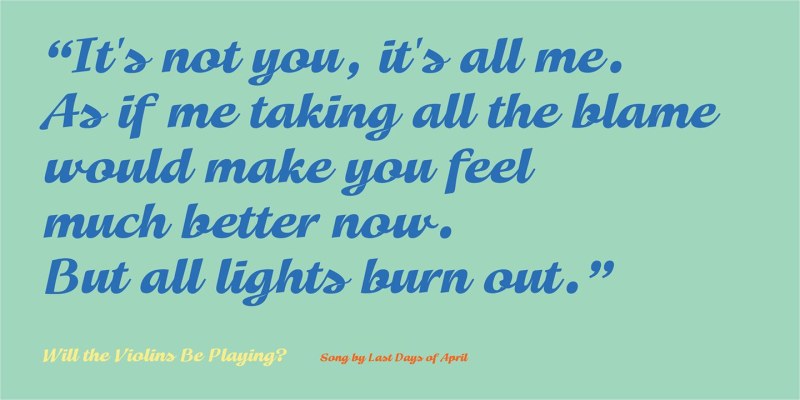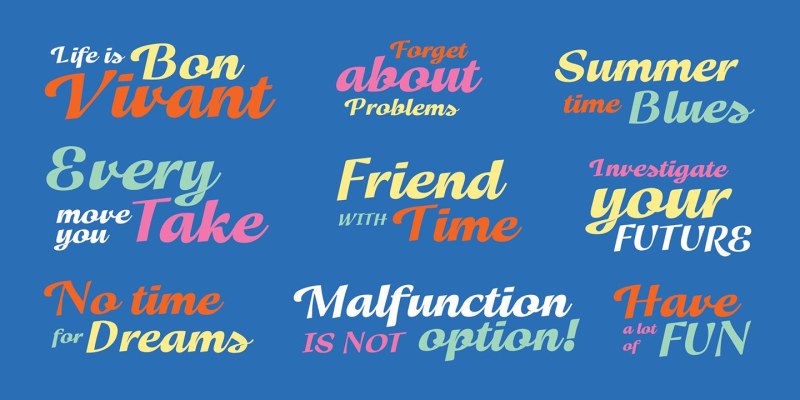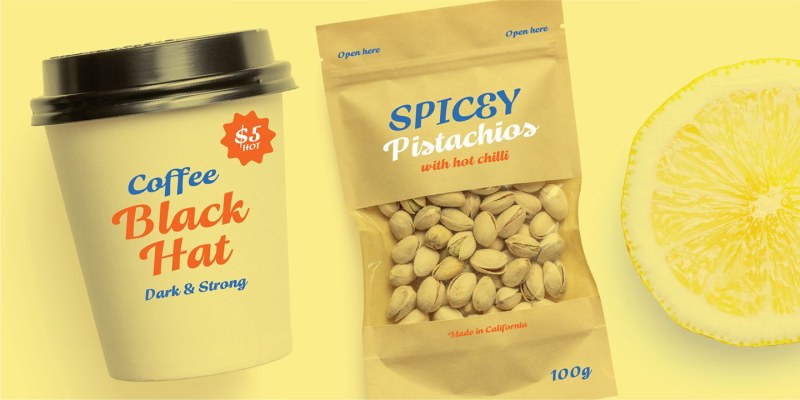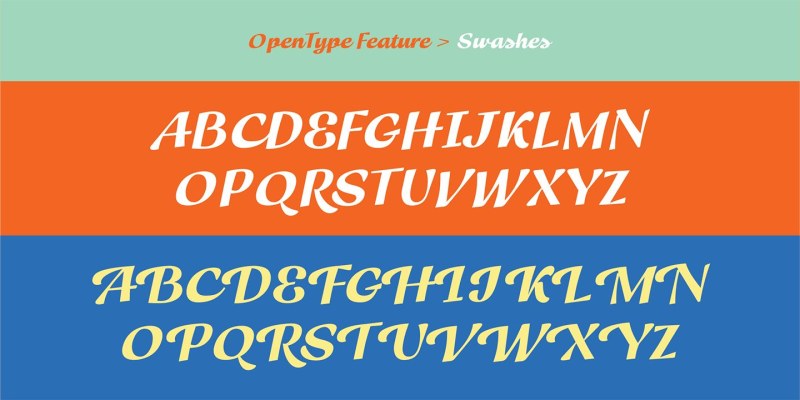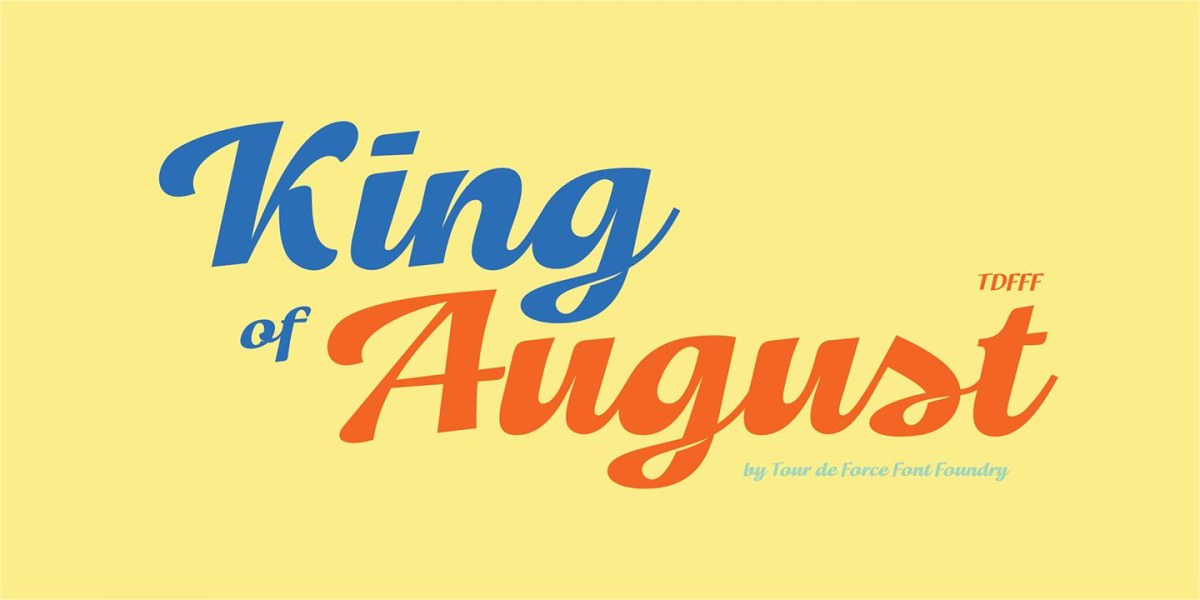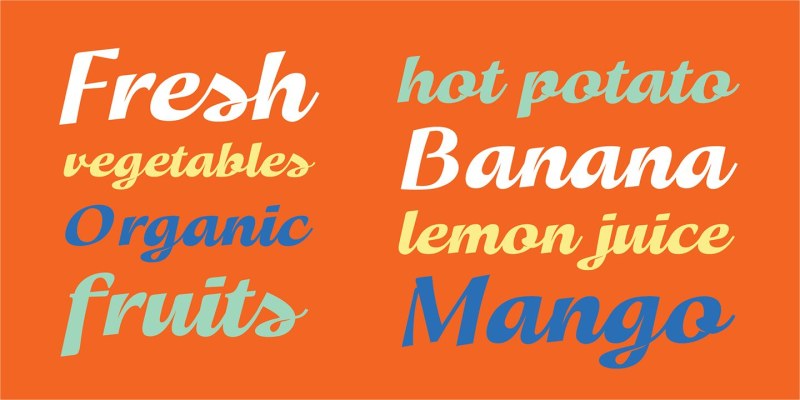
King of August Font
King of August is single weight script font. Simple, elegant, designed letters with power to fit and lead any project. It is ideal for product names, labels, packages, K…
King of August is single weight script font. Simple, elegant, designed letters with power to fit and lead any project. It is ideal for product names, labels, packages, King of August works well in titles and shorter paragraphs as well. Comes with Swashes as OpenType feature.
Where King of August Font works best
King of August Font brings a personal, handwritten warmth to invitations, menus and place cards.
Craft brands — coffee, cosmetics, bakery — use scripts like King of August Font for signature-style logos and labels.
Pair King of August Font with a plain sans for quotes, stories and Pinterest pins that feel handmade.
What is King of August Font good for?
King of August Font is a Script And Handwritten typeface tagged Elegant, Free, Packaging, Script. It works well for headlines, logos, posters, social media graphics and branding projects that need a distinctive script and handwritten look.